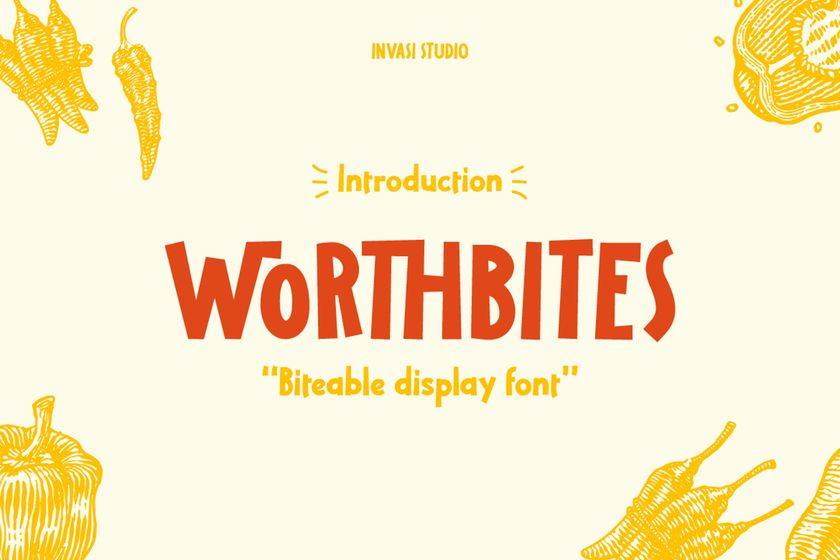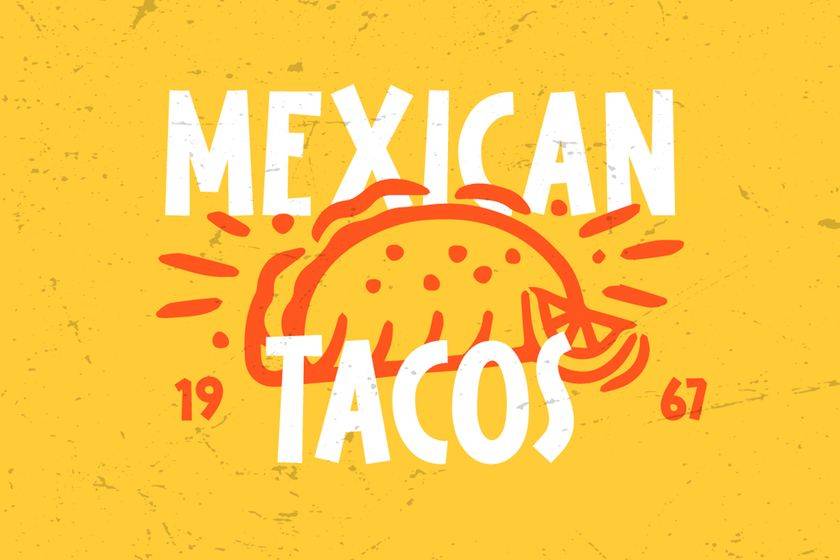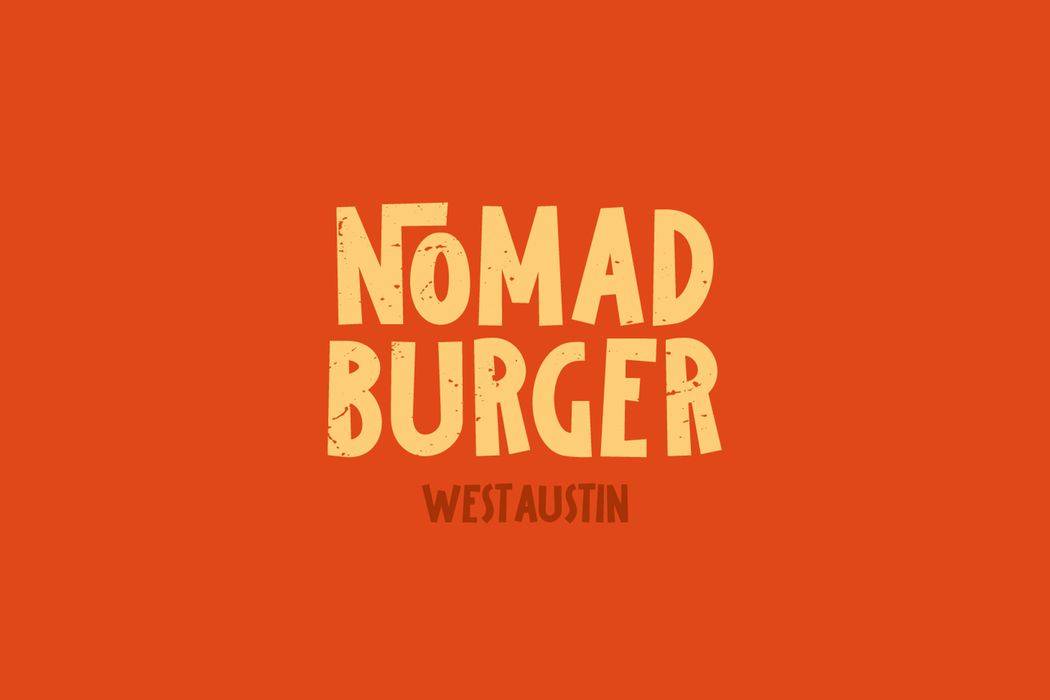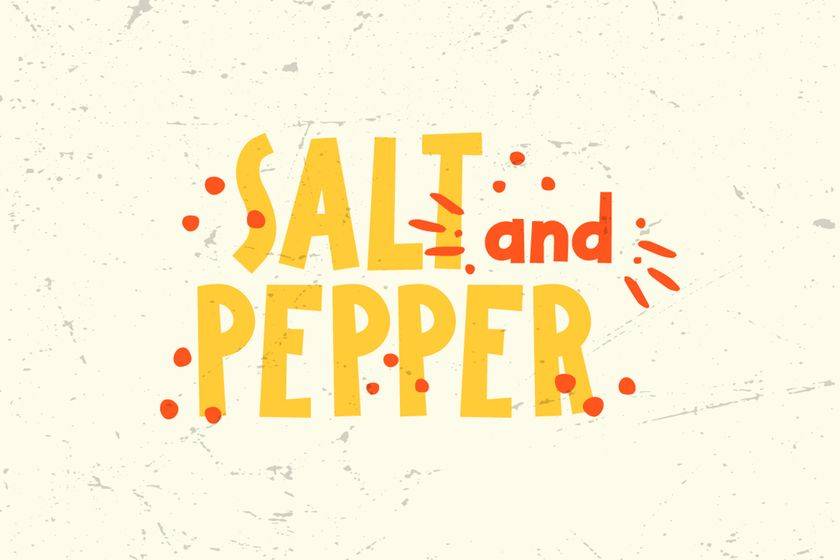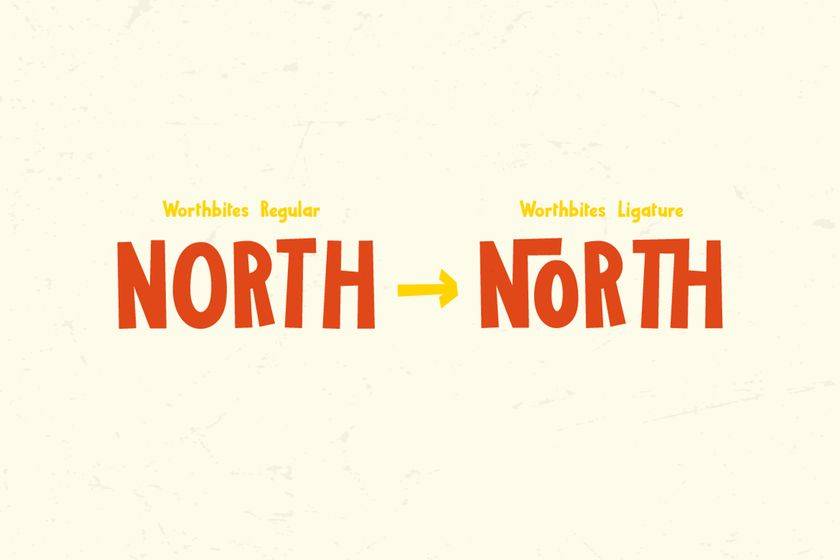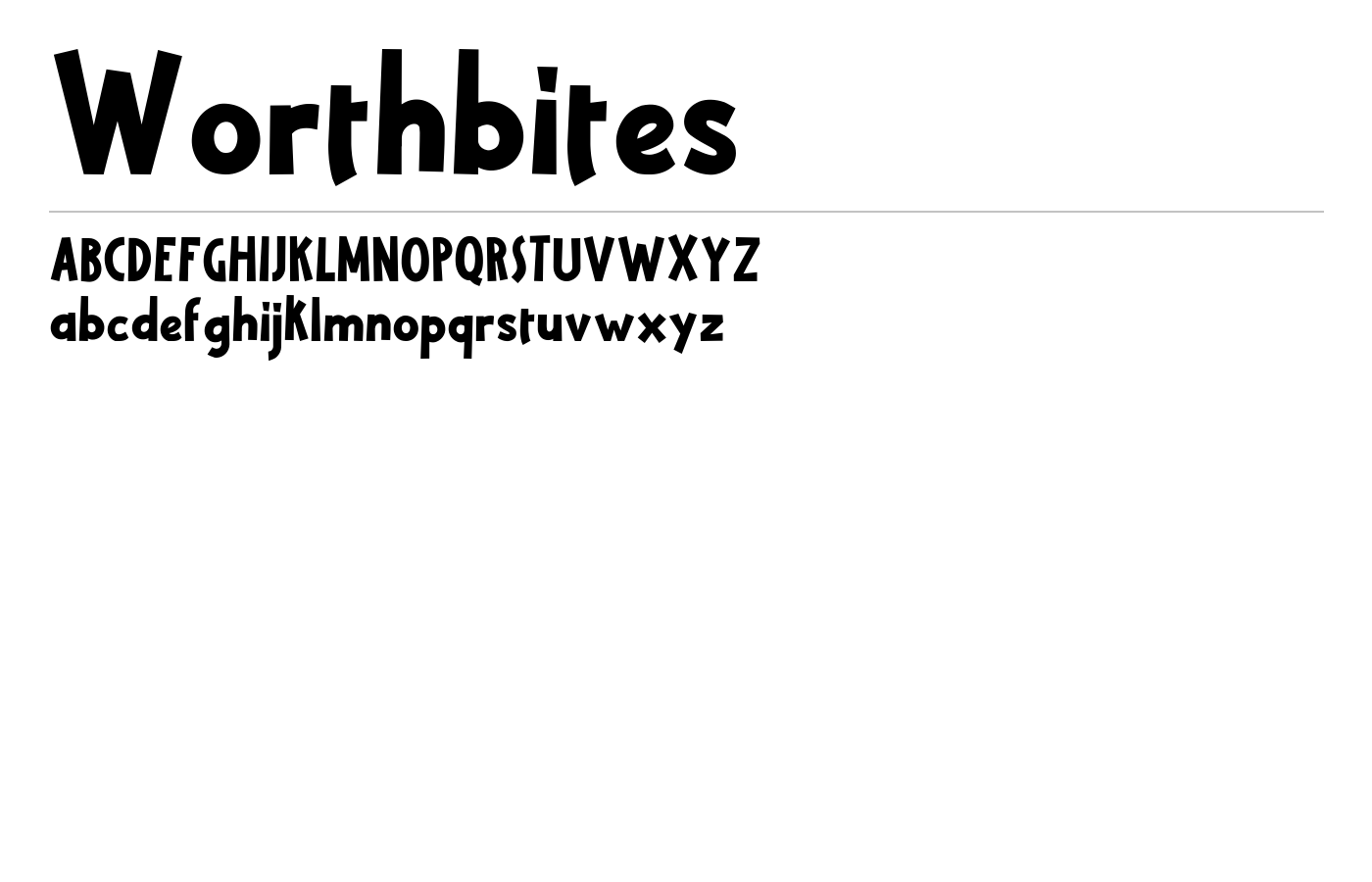
Worthbites is a playful, bold sans serif font with quirky, irregular shapes that create a fun and approachable vibe. Its thick strokes and condensed width make it eye-catching and perfect for headlines, logos, and branding that wants a lively, energetic feel. This font works well for creative, youthful projects that need a friendly and distinctive personality.
Worthbites Font
About Worthbites Font